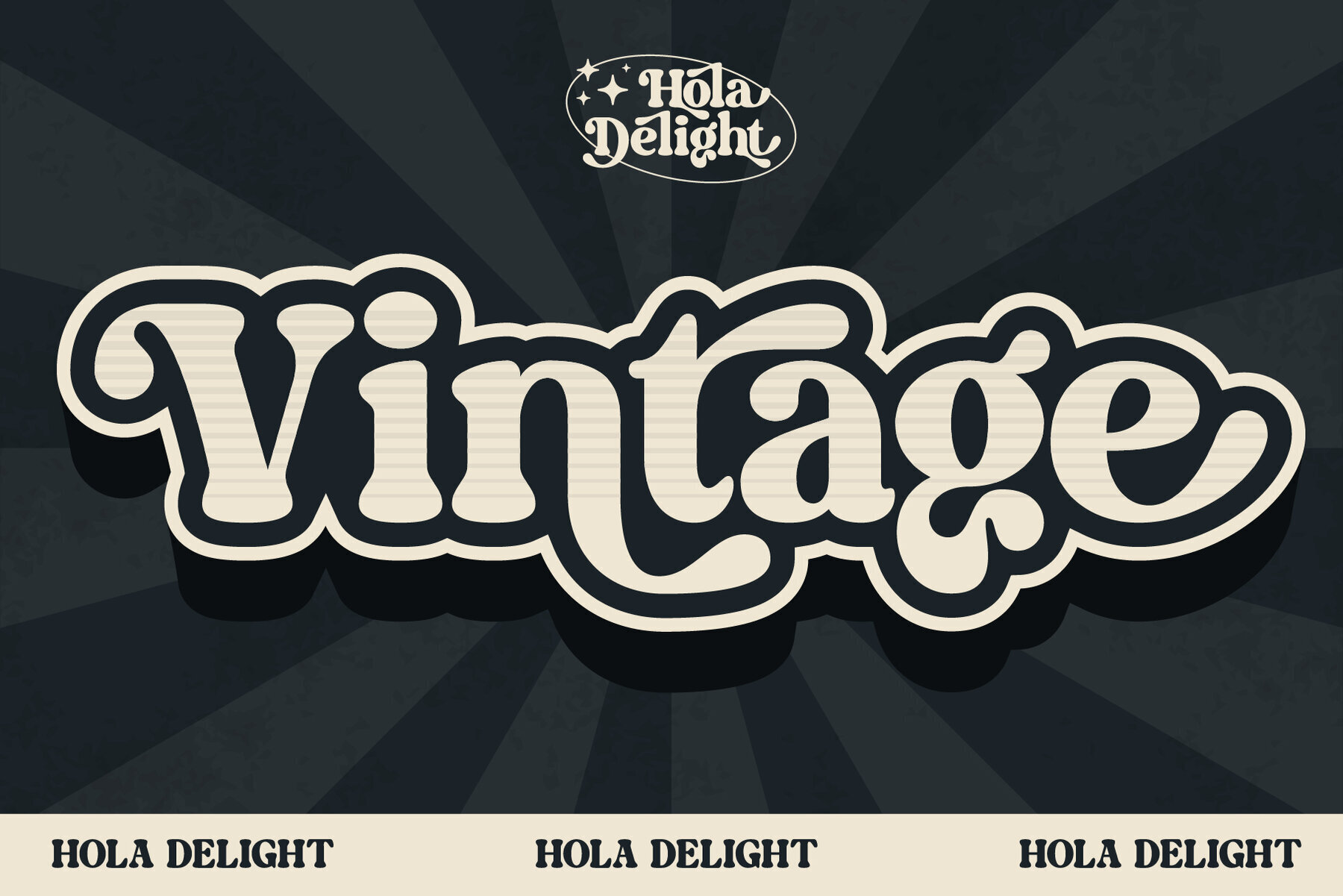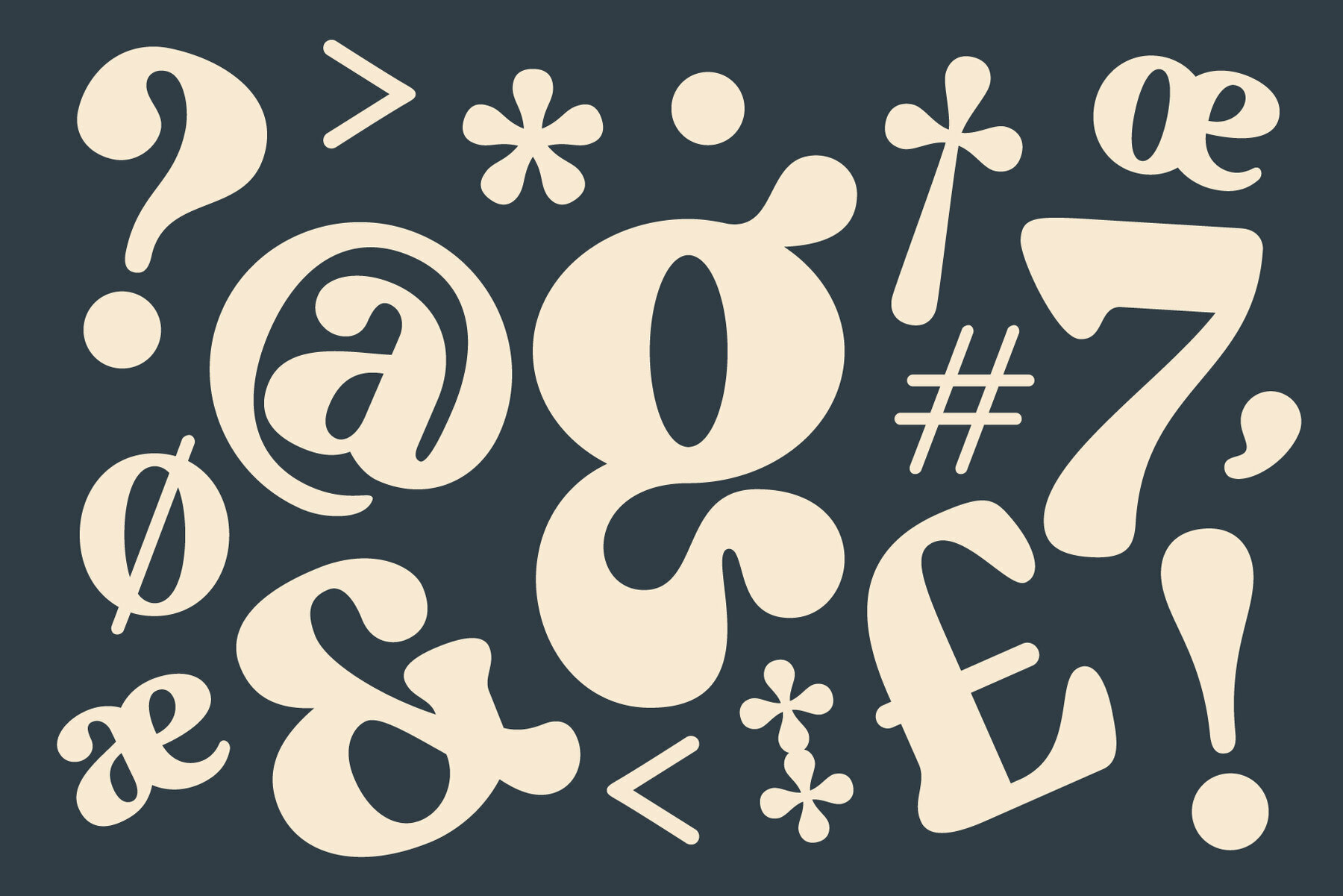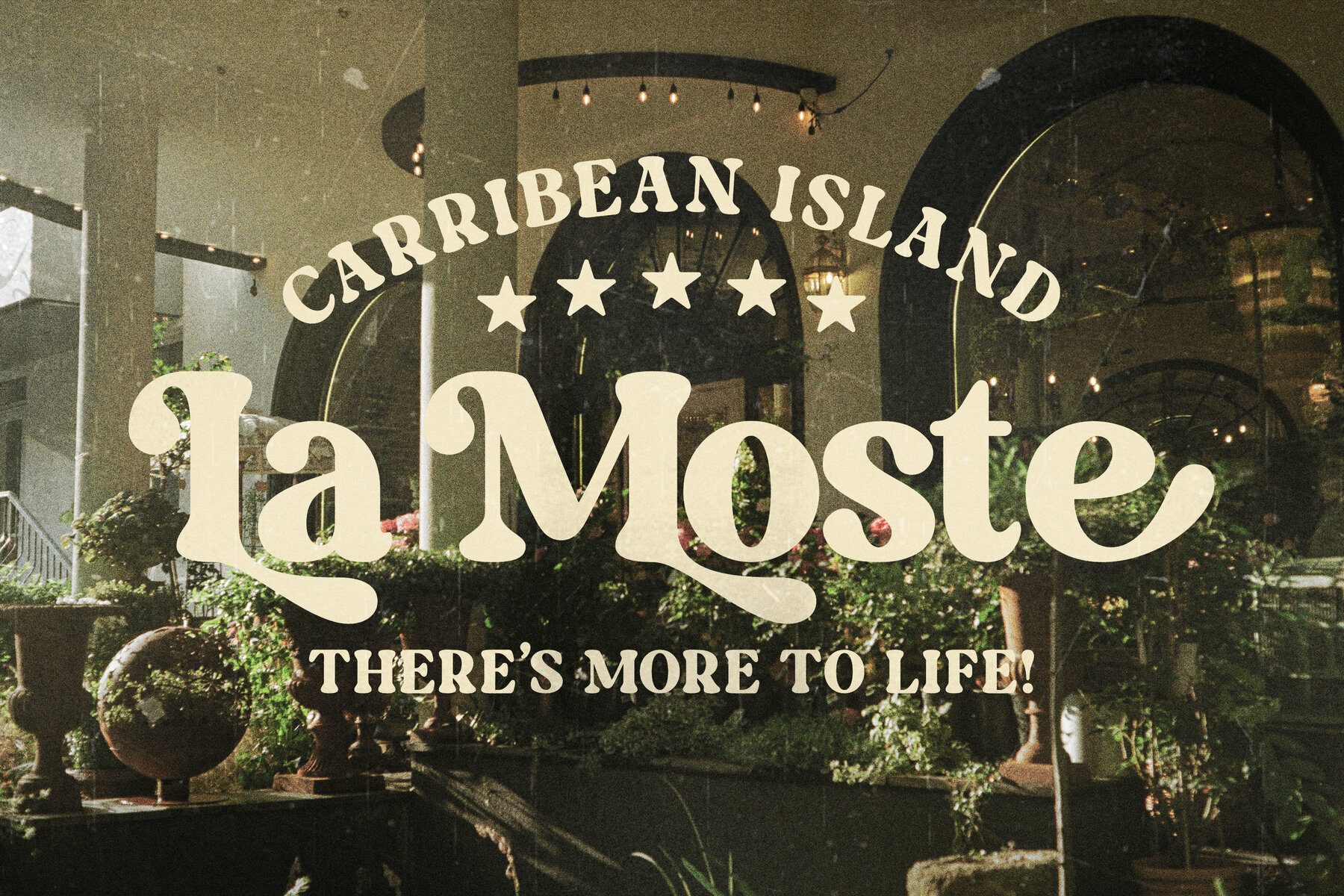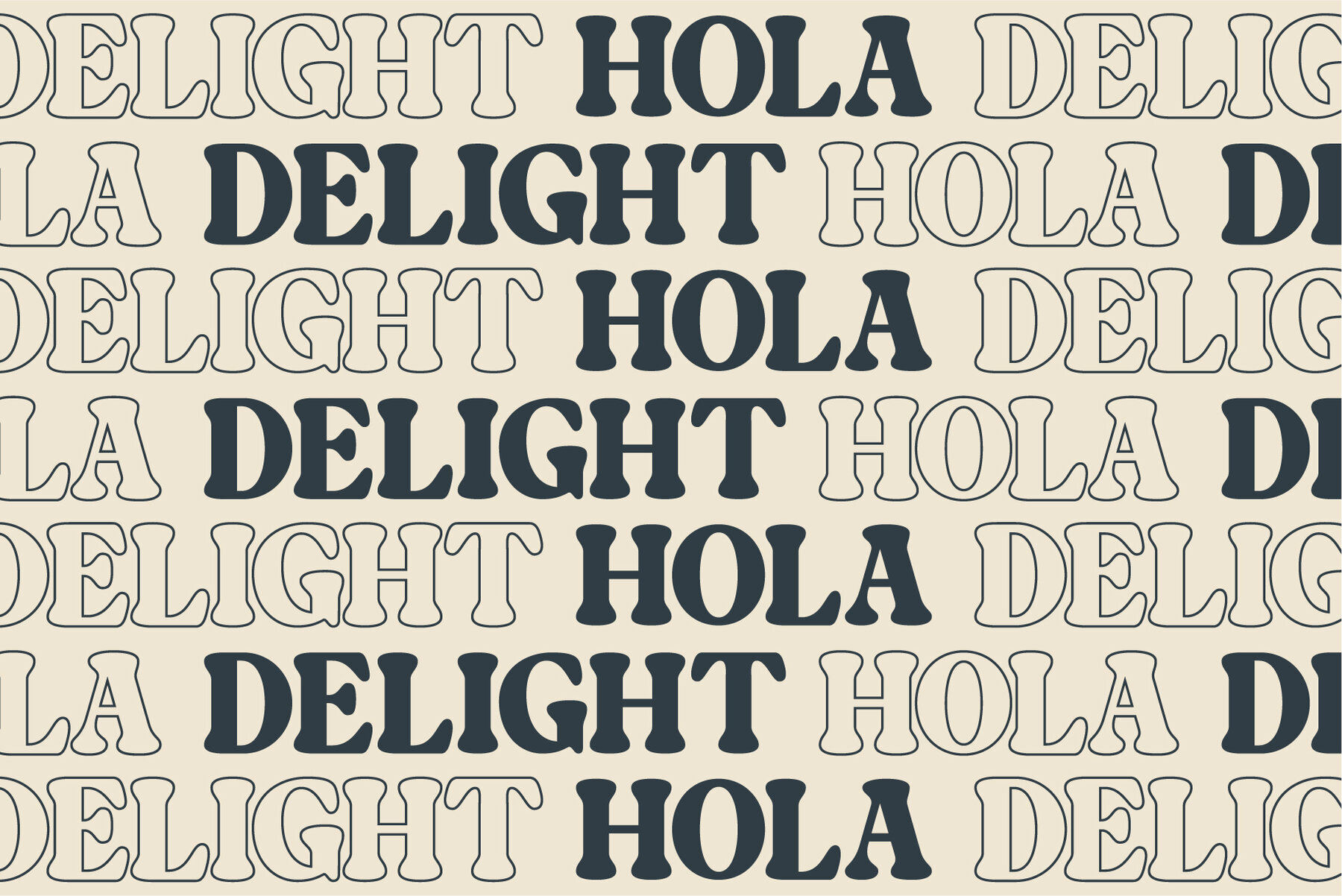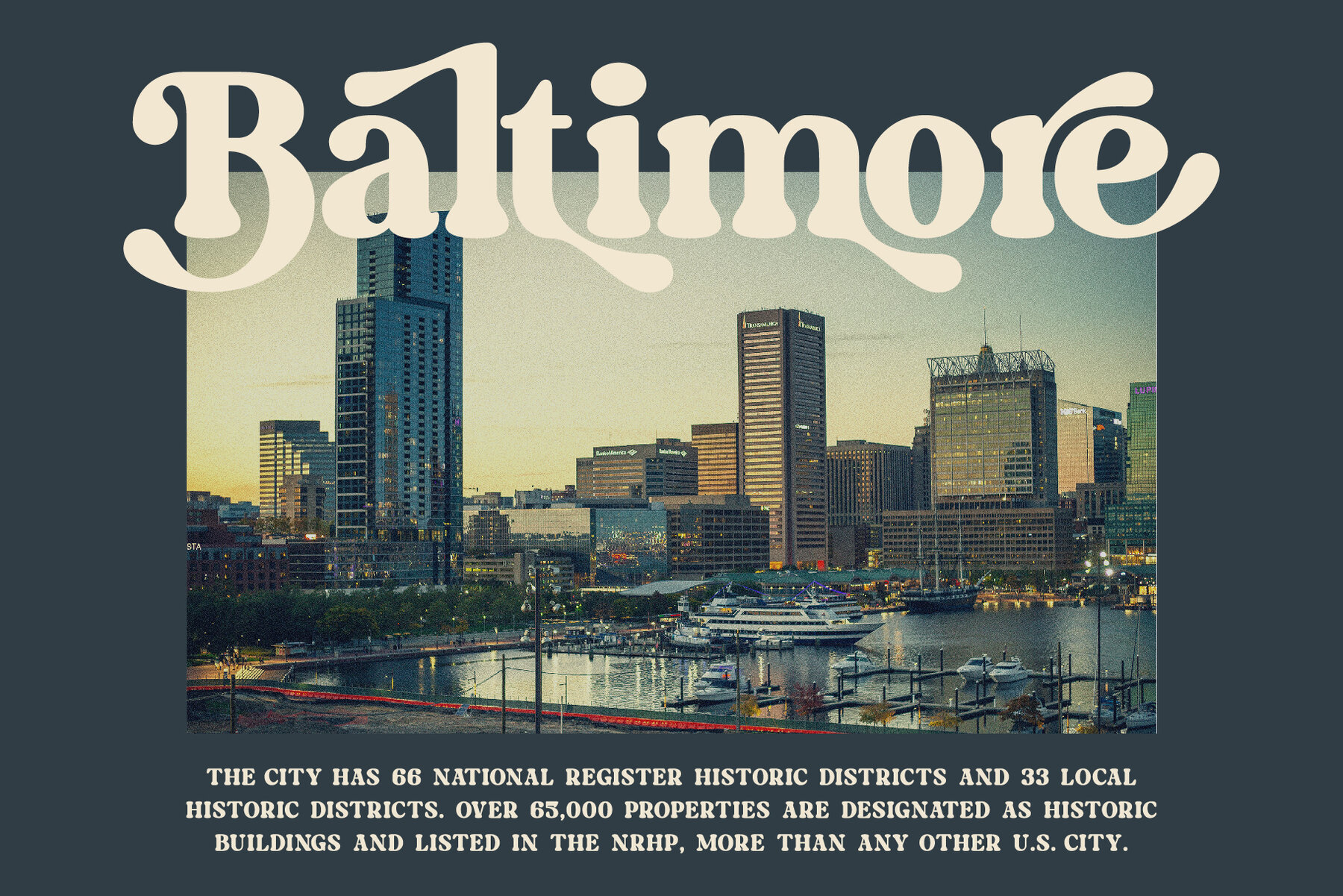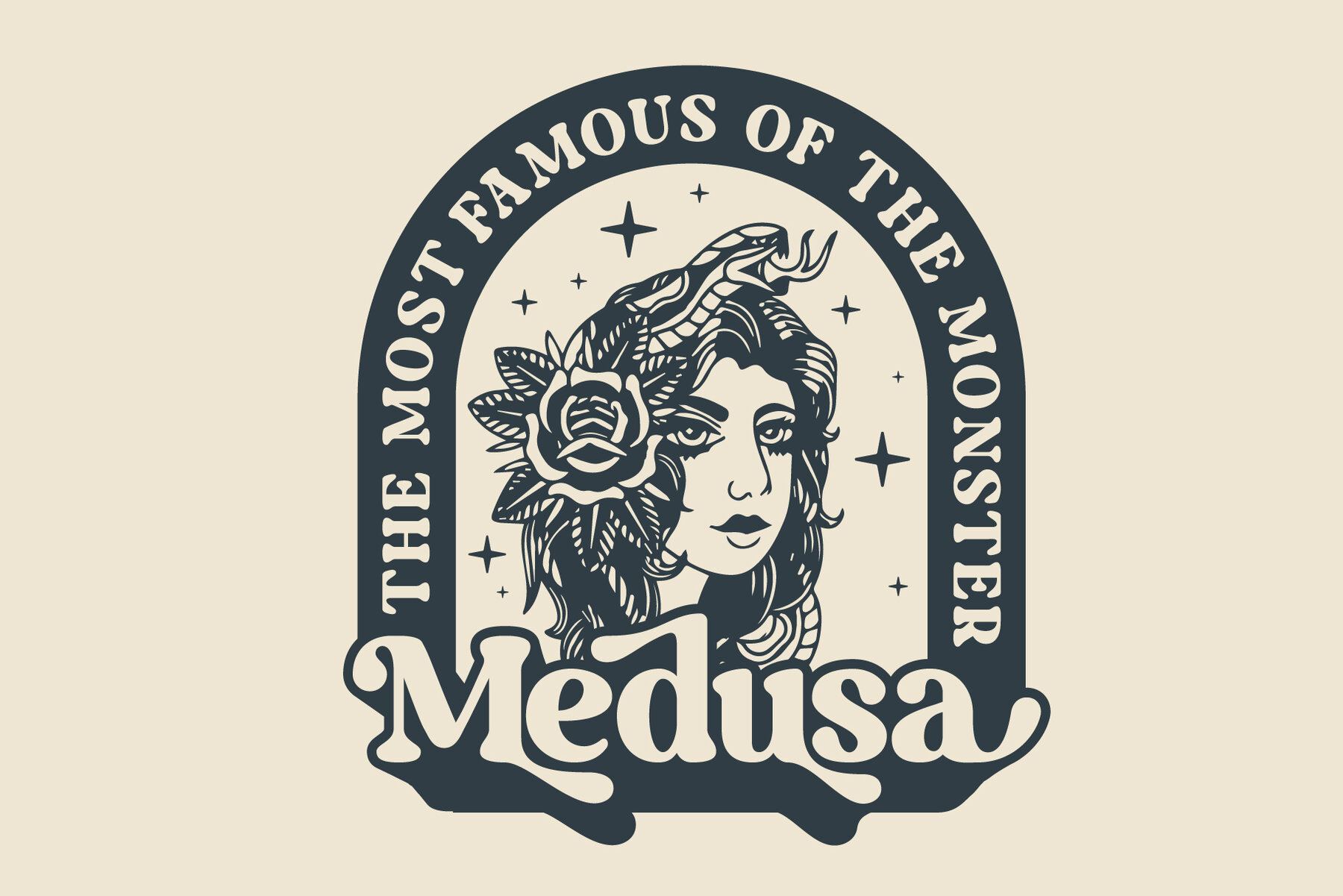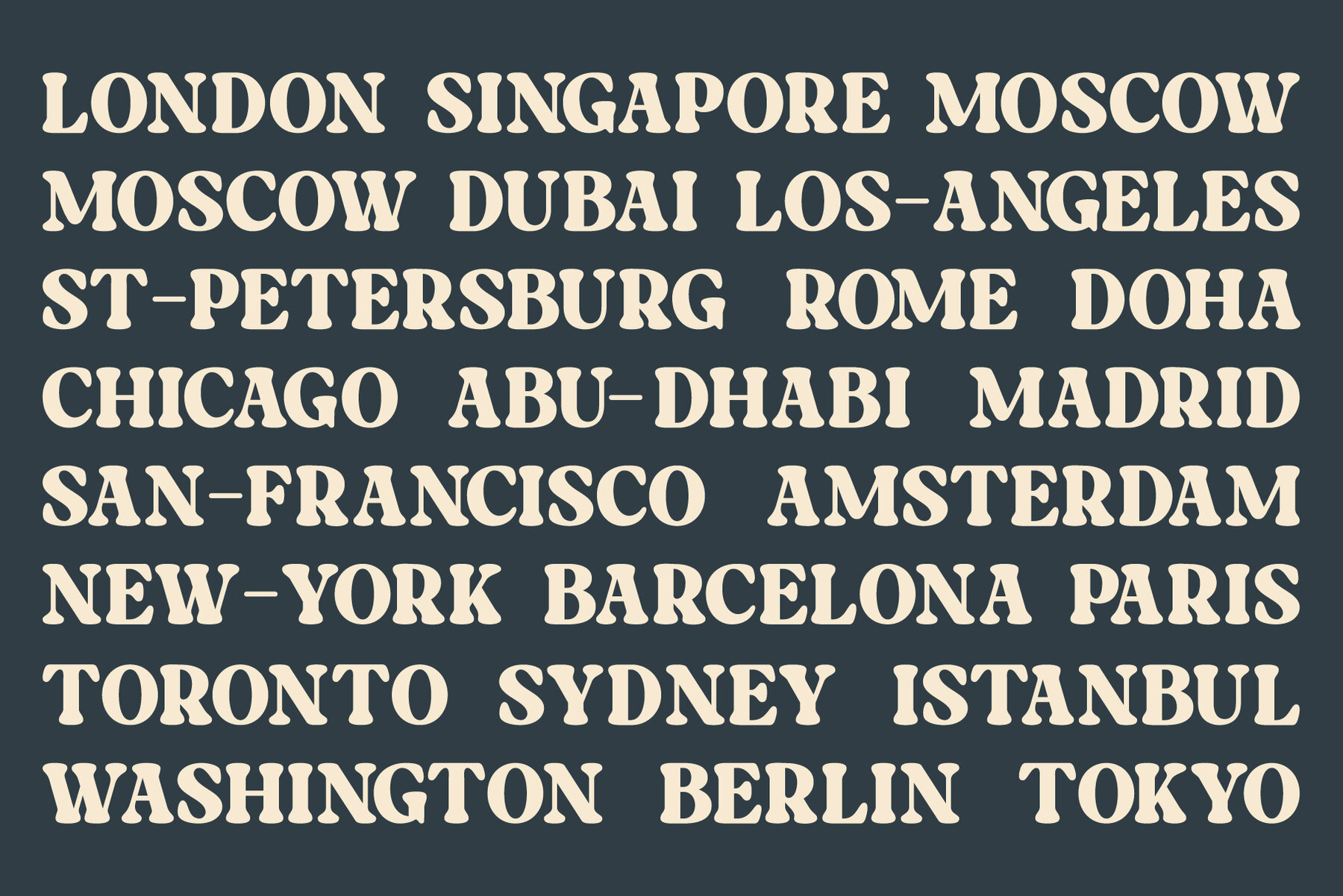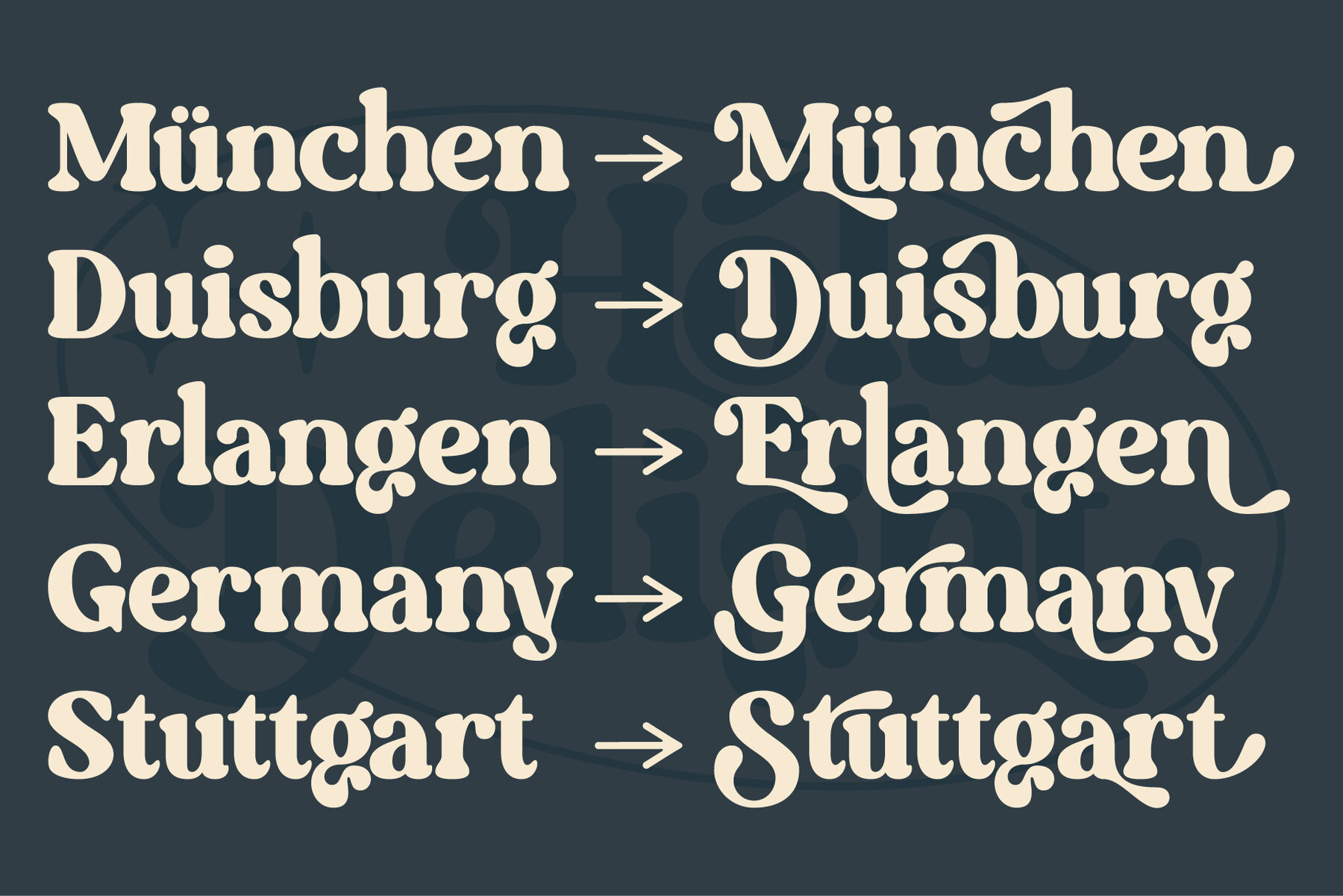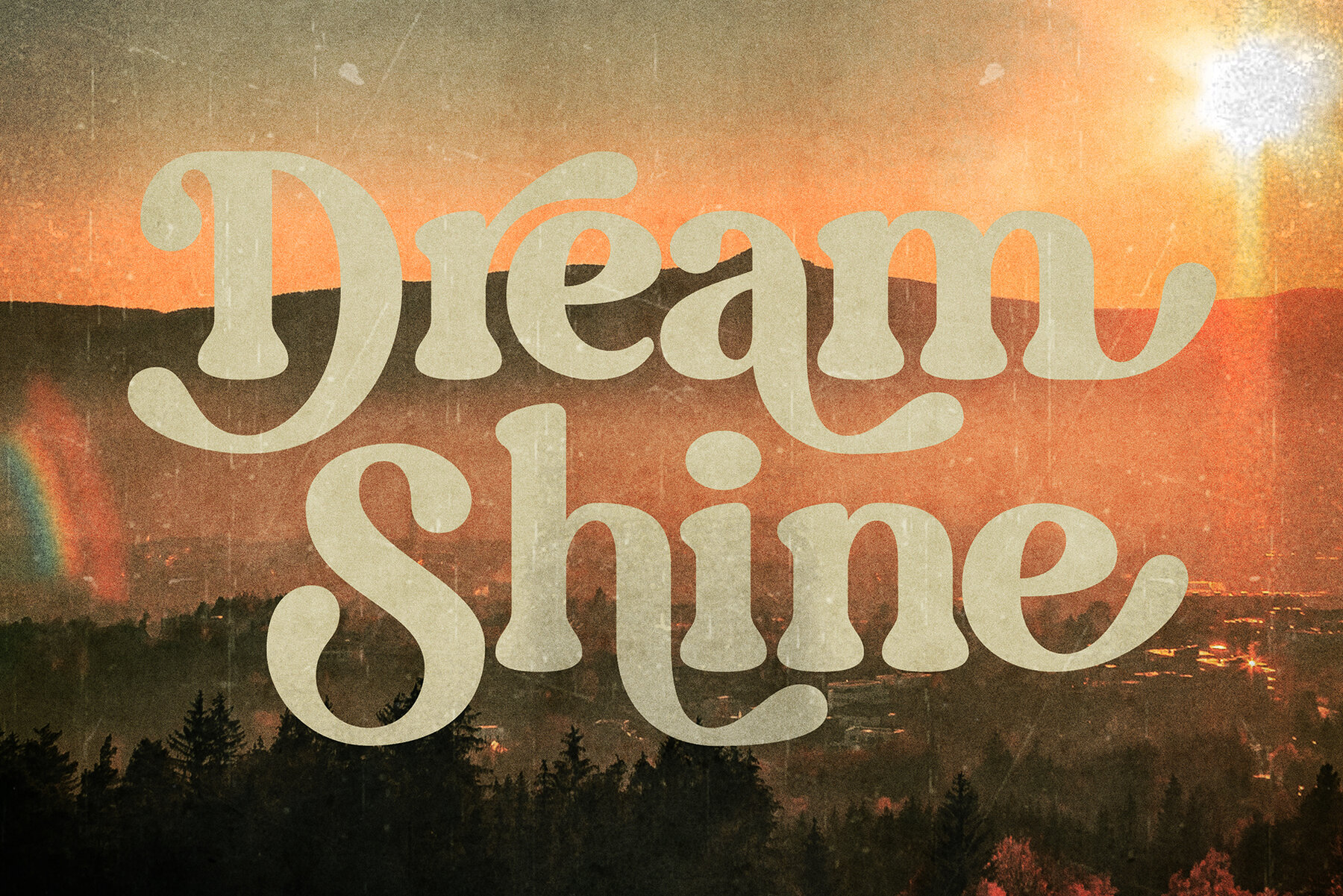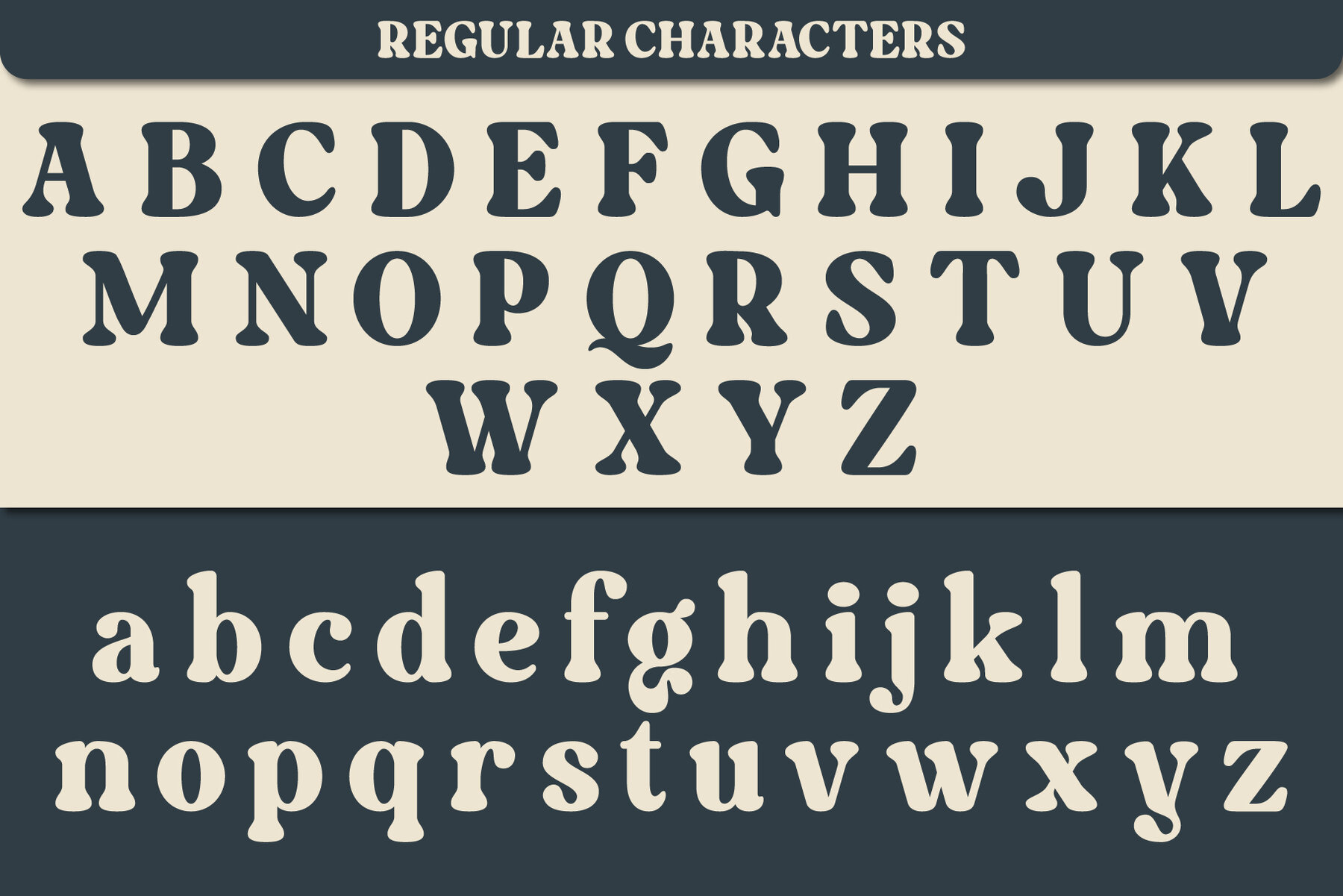
Hola Delight Font
Hola Delight
Hola Delight serif font was a very unique retro style-obsessed in the past, but now we are giving this font a unique touch by providing 100+ alternative characters, which can be combined at your command for your best designs.